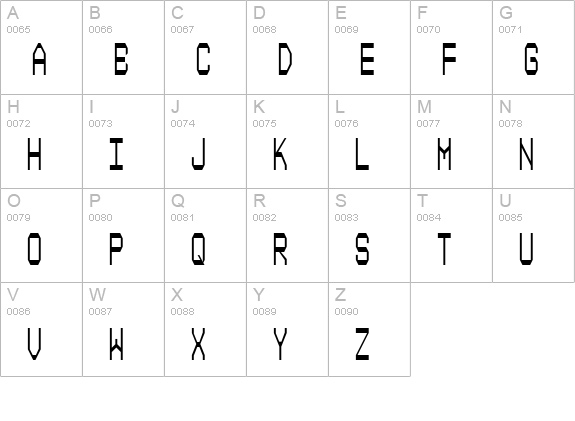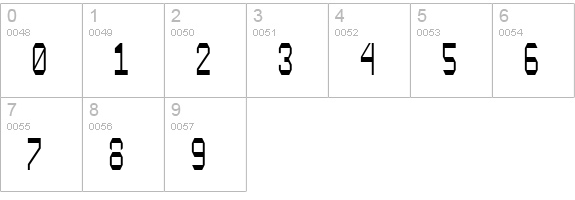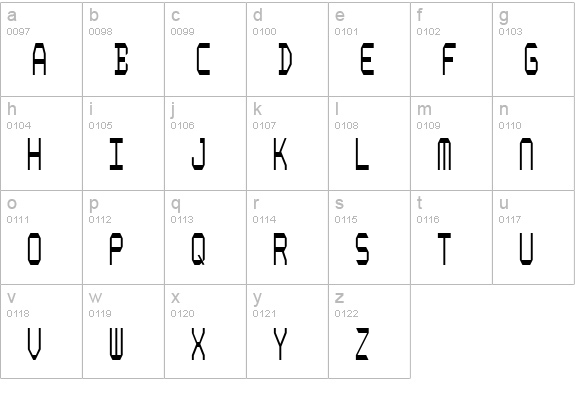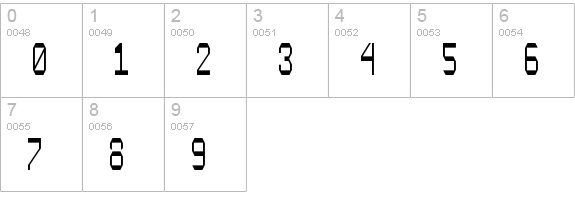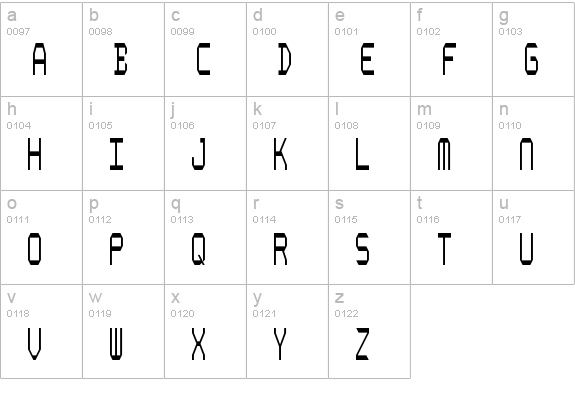
Composite Light is a refined, elegant variant in the Composite typeface family \xE2\x80\x94 well suited to elegant body text, refined sub-headings, and luxury branding.
Composite Light is a sleek and modern font that exudes sophistication and elegance. Its clean lines and balanced letterforms make it perfect for a wide range of design projects, from branding to editorial design. The light weight of the font gives it a delicate and airy quality, making it ideal for creating a subtle yet impactful visual presence. One of the best things about Composite Light is that it is available for free download at FontsMarket.com. This means that you can add this beautiful font to your collection without any cost, allowing you to elevate your design work without breaking the bank. Whether you're a seasoned designer or just starting out, Composite Light is a versatile and stylish font that will enhance any project it's used in.